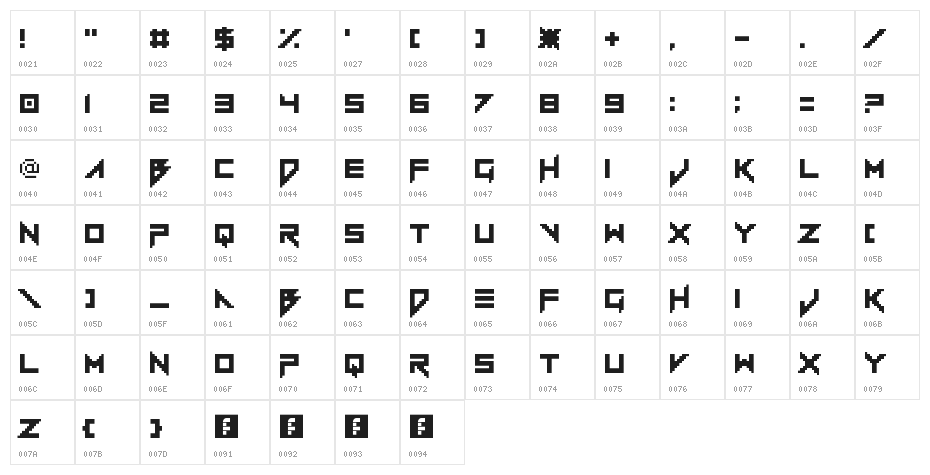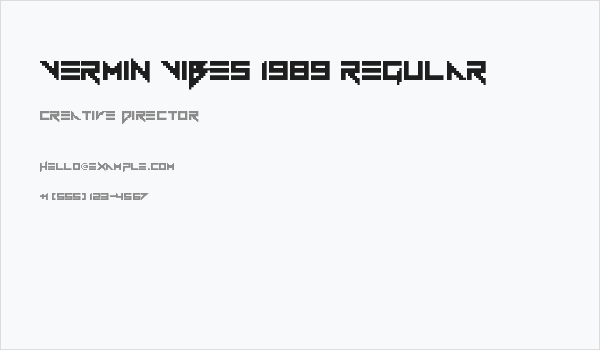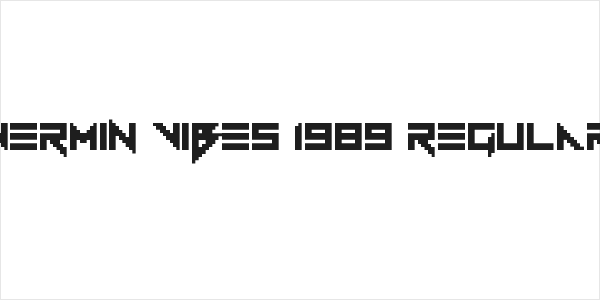
Vermin Vibes 1989 Regular Font
Vermin Vibes 1989 Regular Description
This font features a bold, pixelated style reminiscent of retro video games and digital displays from the late 1980s. Each character is constructed with sharp, angular edges and a blocky appearance, giving it a distinctly digital and geometric look. The uppercase and lowercase letters maintain a consistent height, contributing to a uniform and cohesive design. The numerals and special characters follow the same pixelated aesthetic, ensuring a seamless integration across all text elements. This font's unique style captures the essence of vintage digital art, making it ideal for projects that aim to evoke nostalgia or a retro-futuristic vibe.
| Proposed Projects | Ideal for video game design, retro-themed posters, digital art projects, and nostalgic branding. |